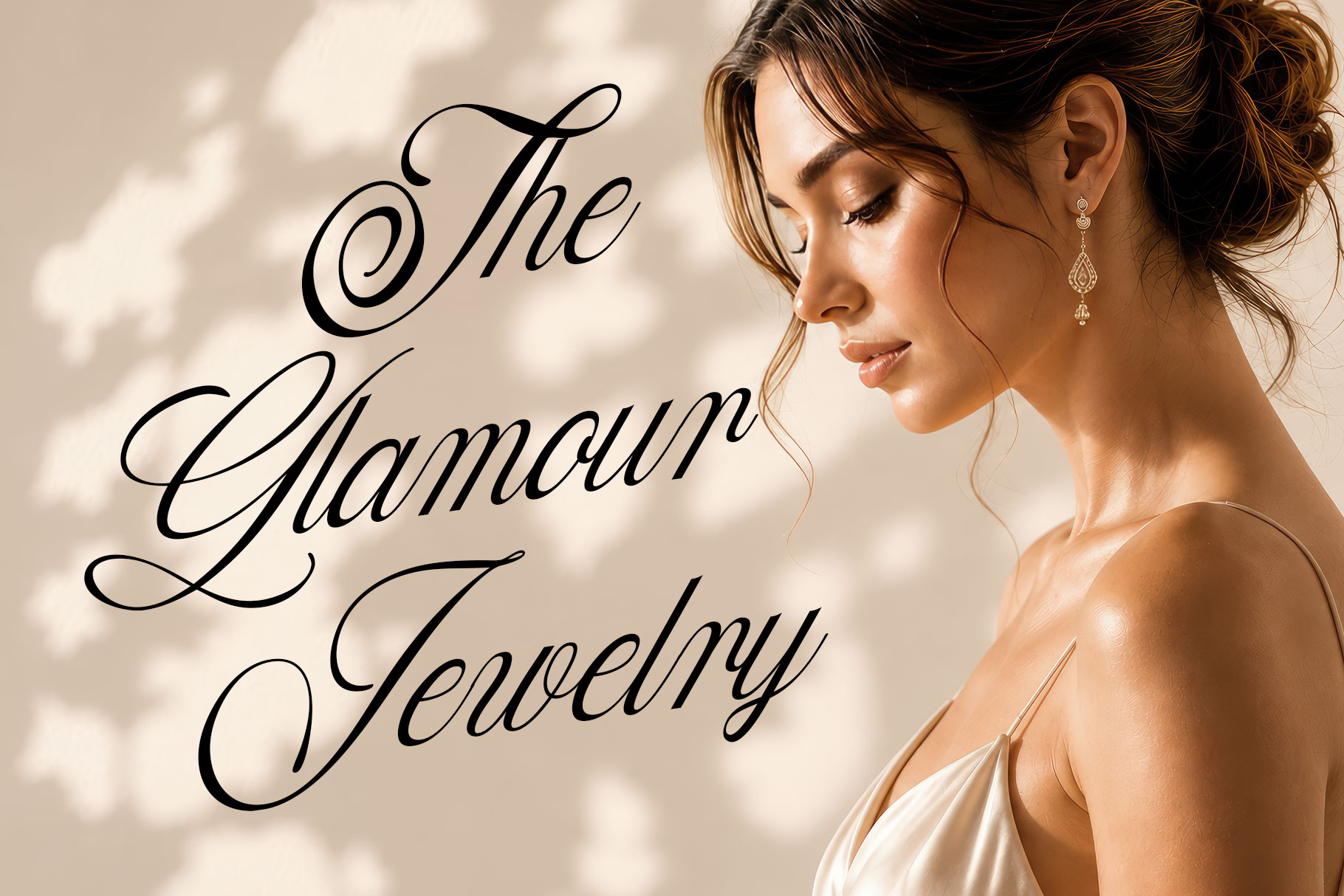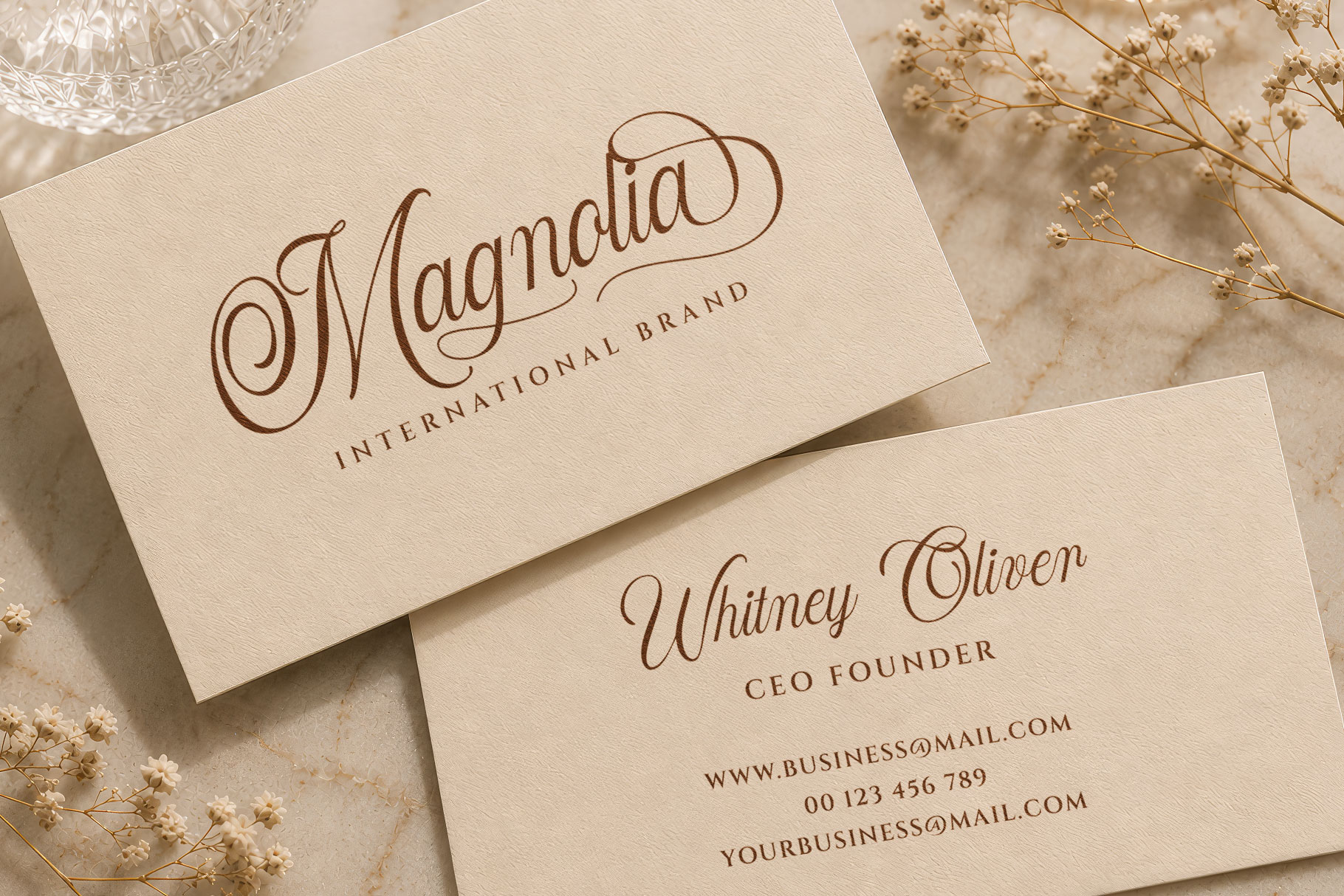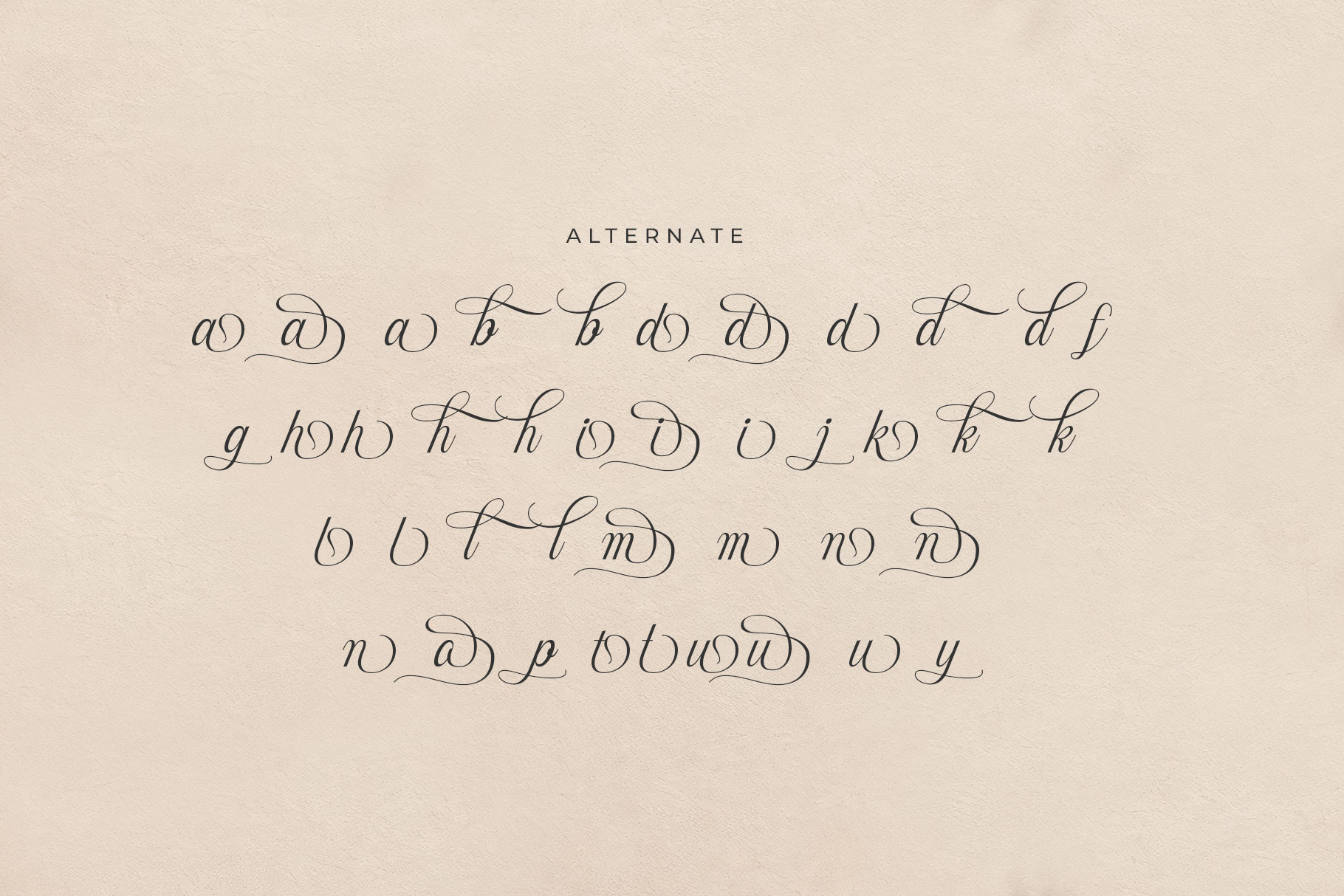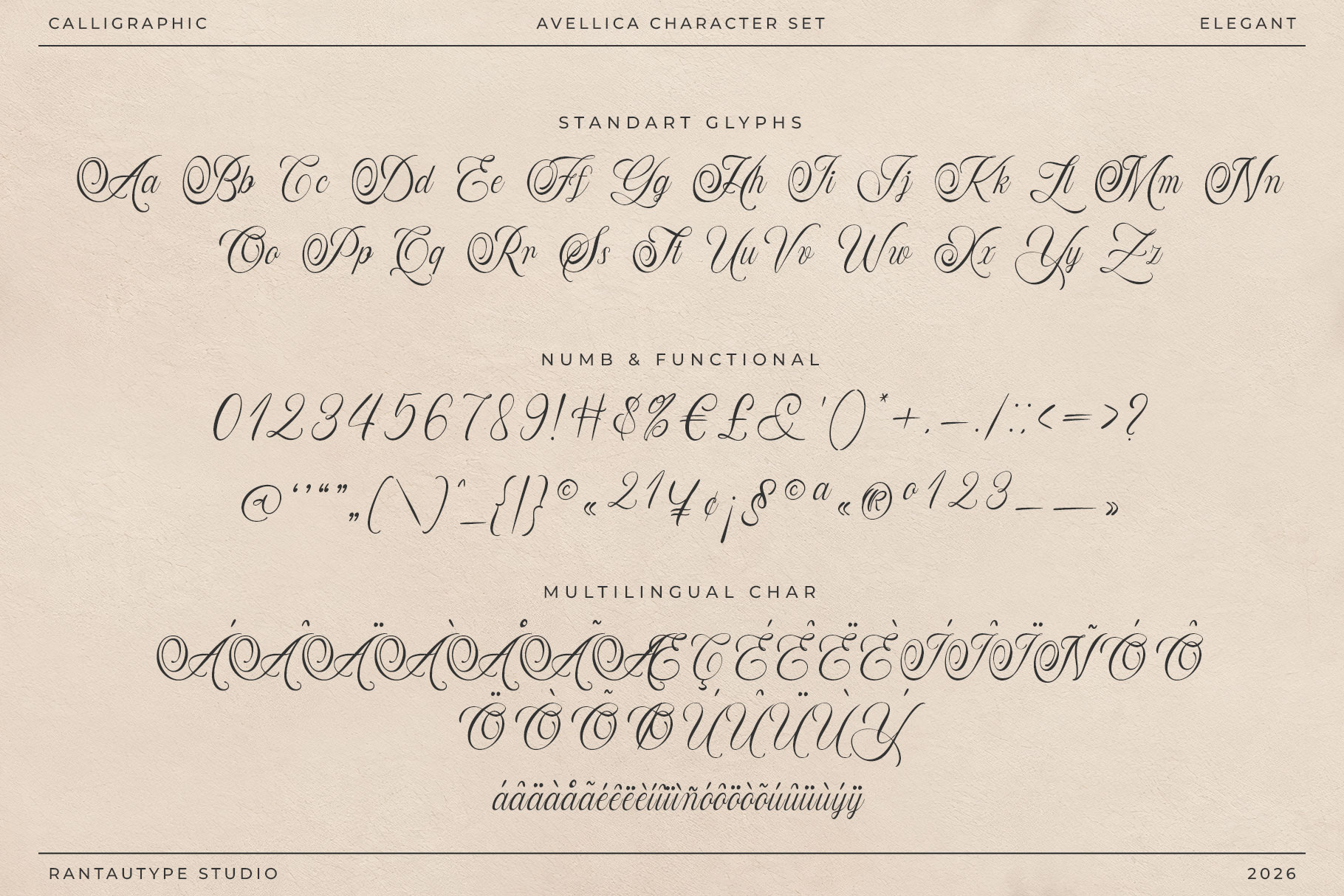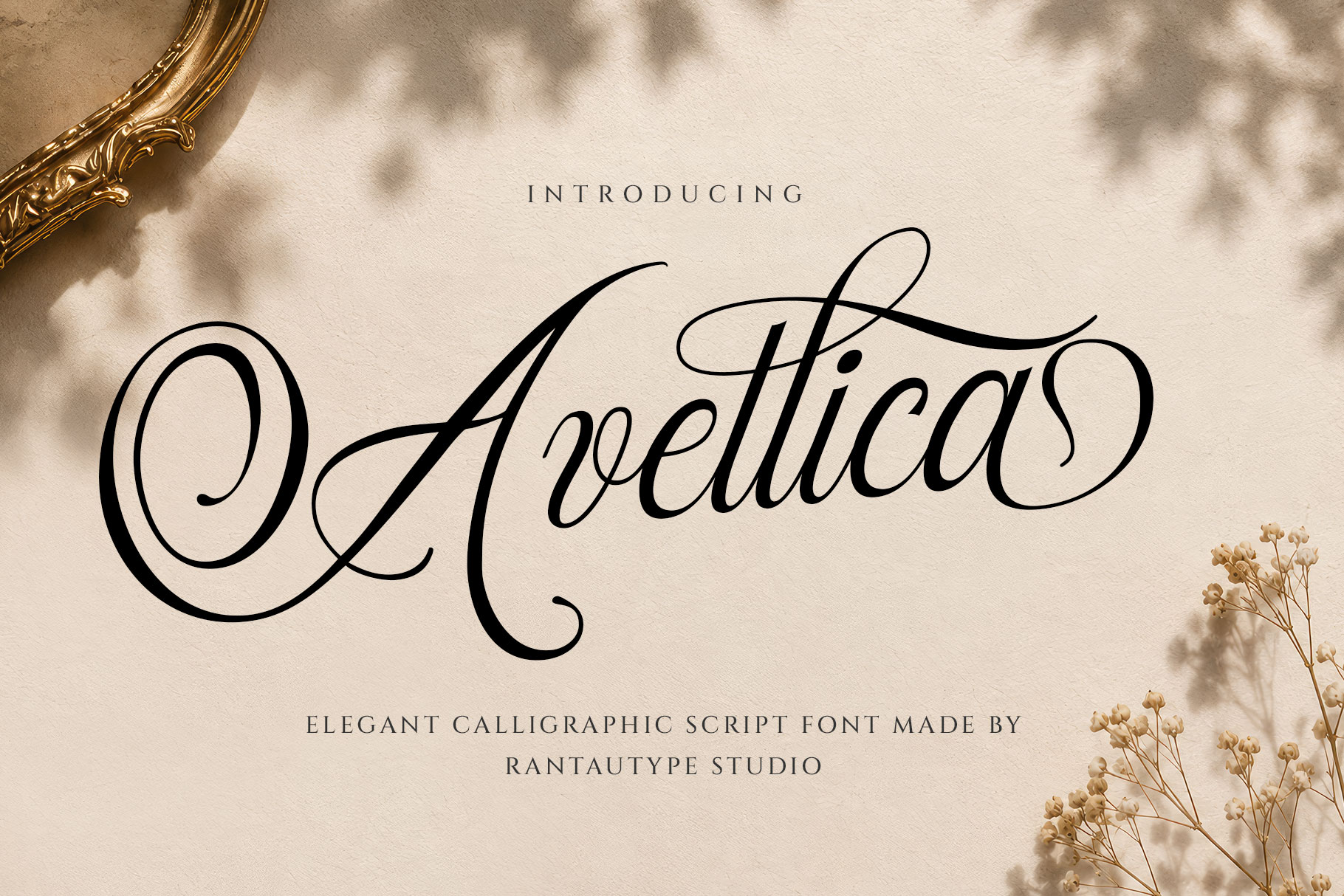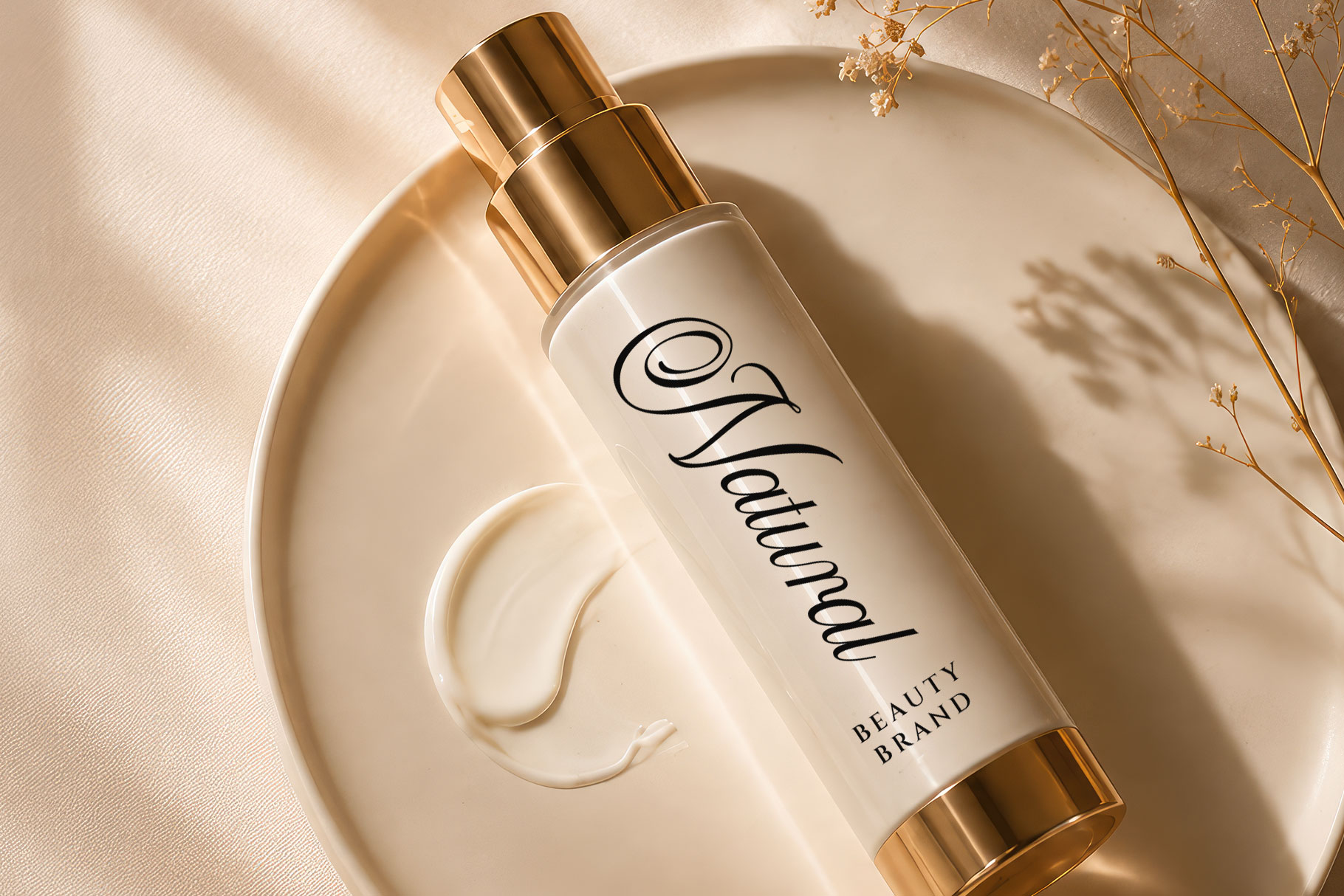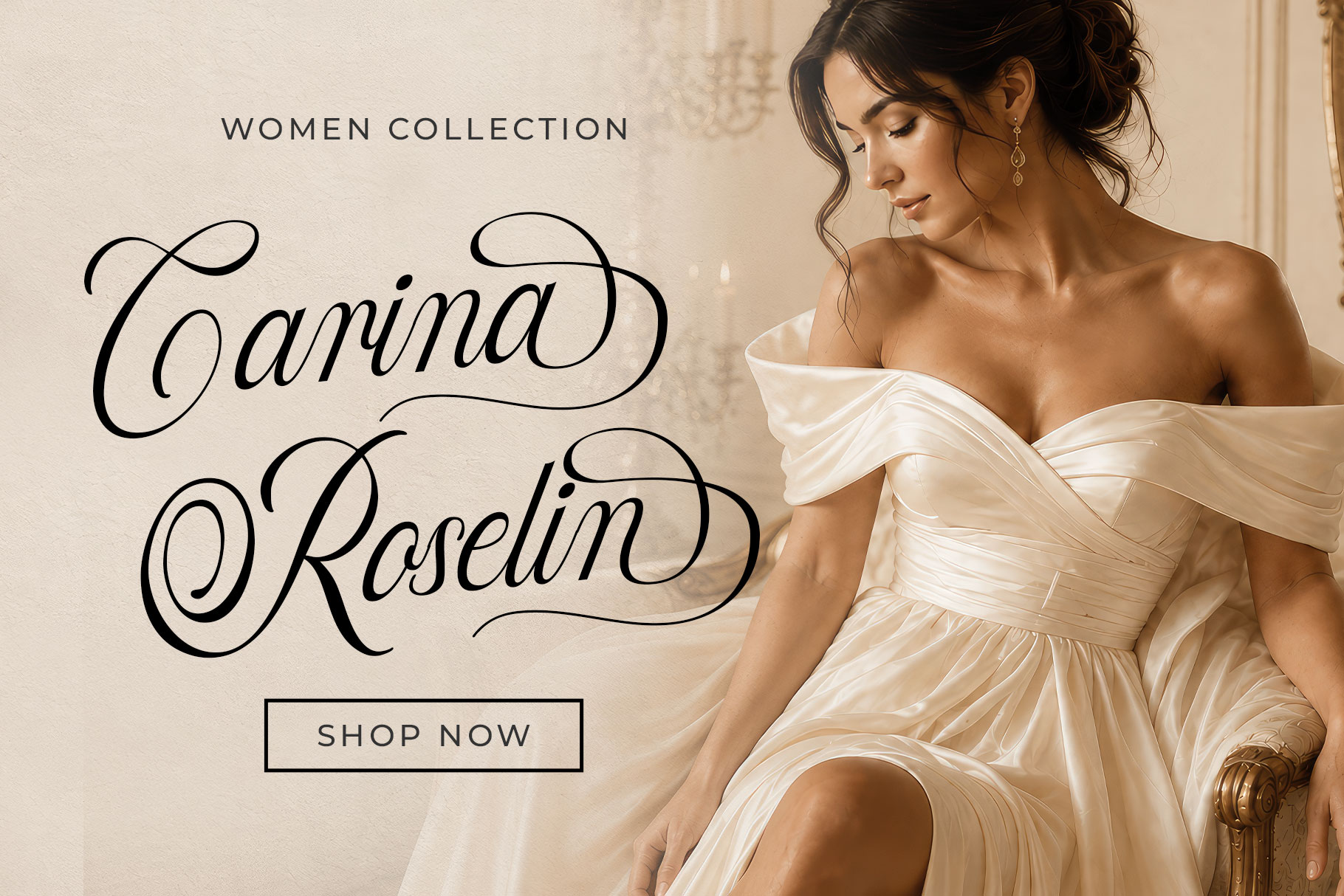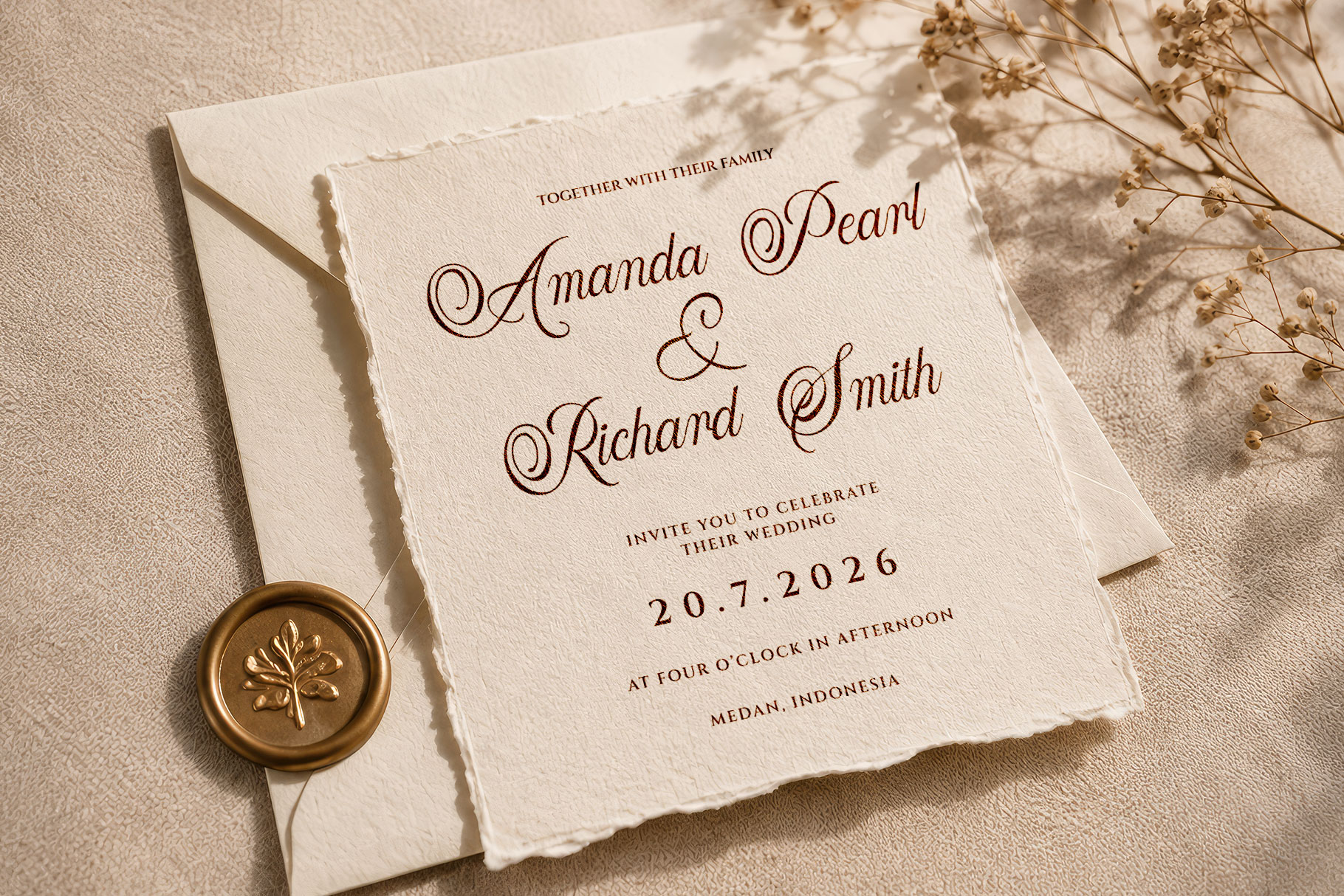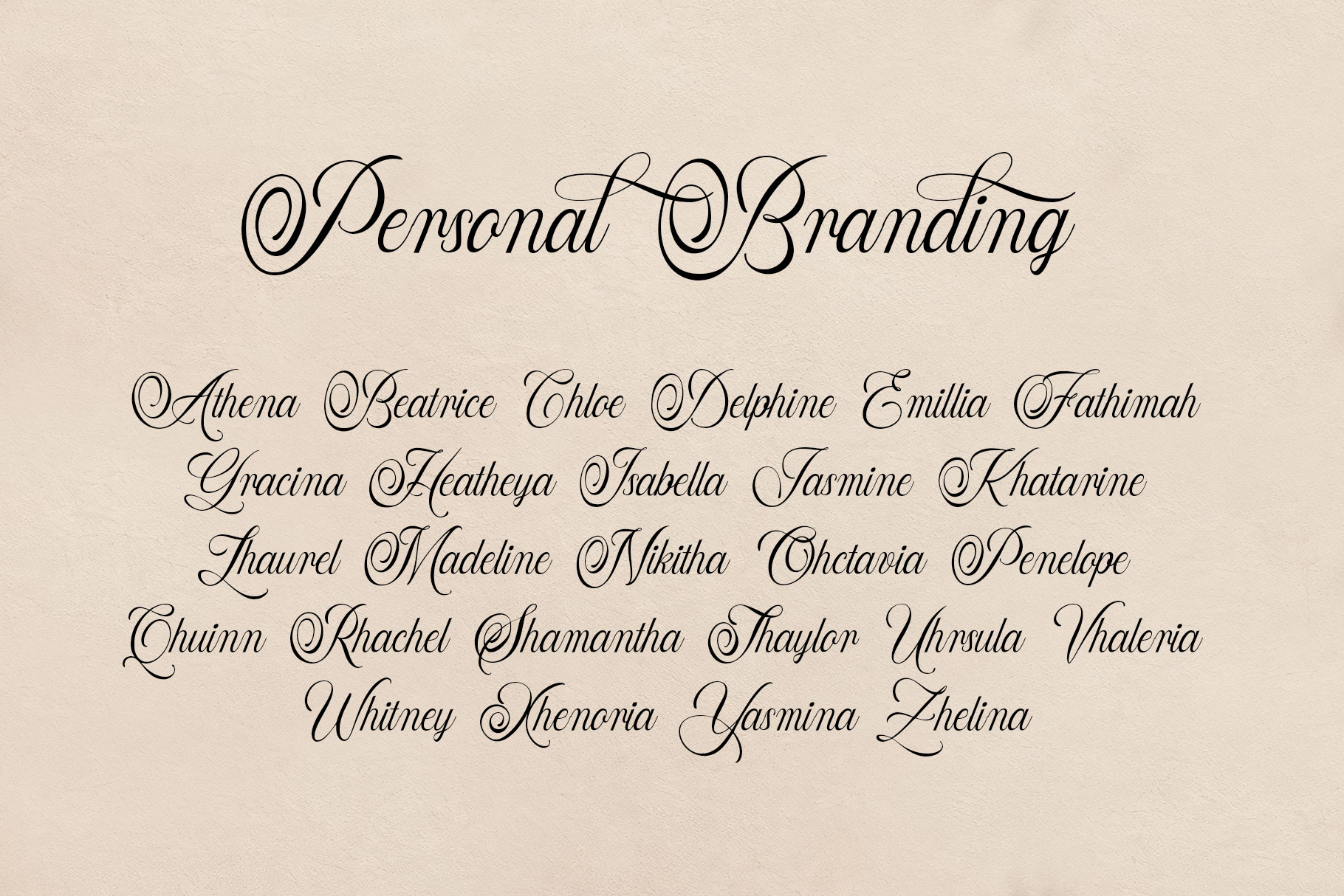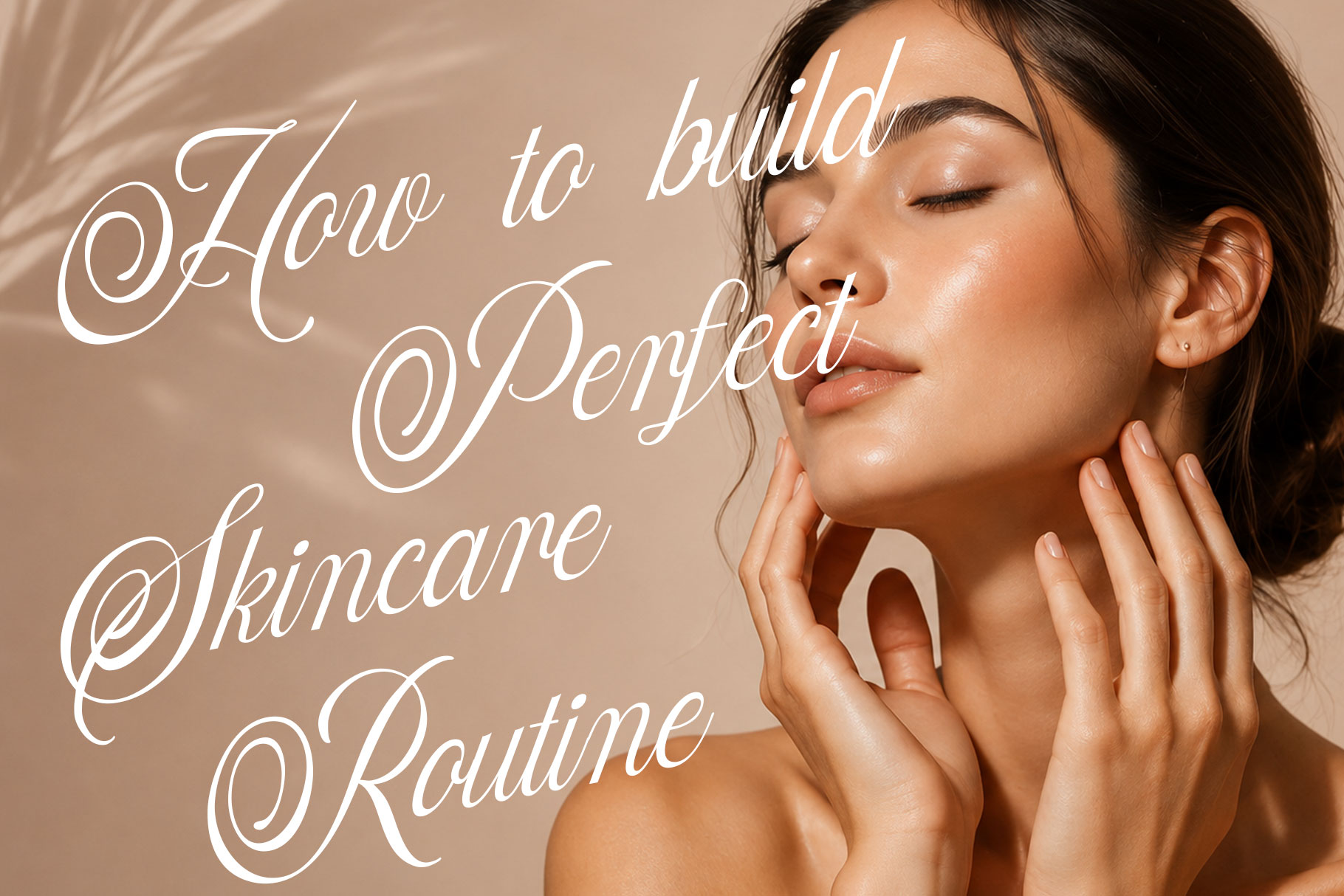
Avellica is s a sophisticated and graceful typeface designed to bring a sense of luxury, romance, and timeless beauty to every composition. Inspired by traditional hand-lettered calligraphy, this script combines delicate hairline strokes, expressive curves, creating a beautiful contrast that feels both refined and artistic.
Avellica Elegant Calligraphic Script Font